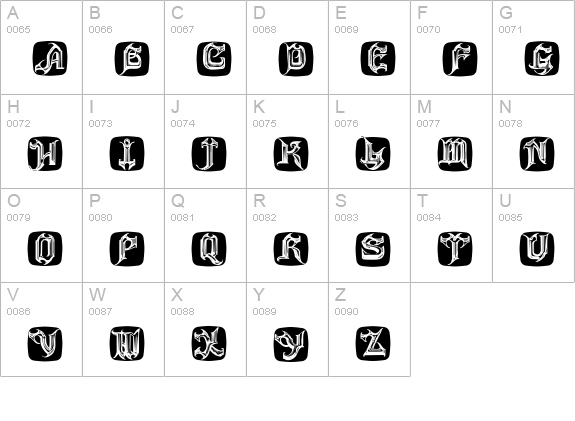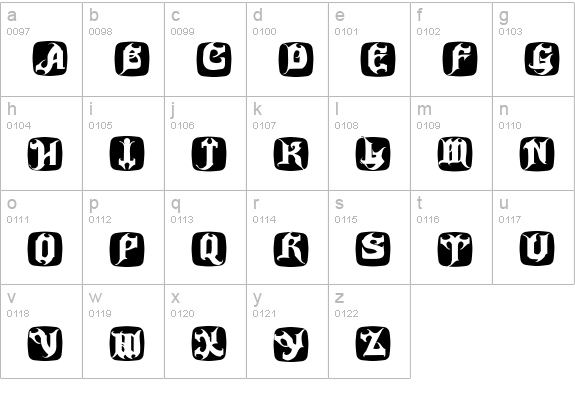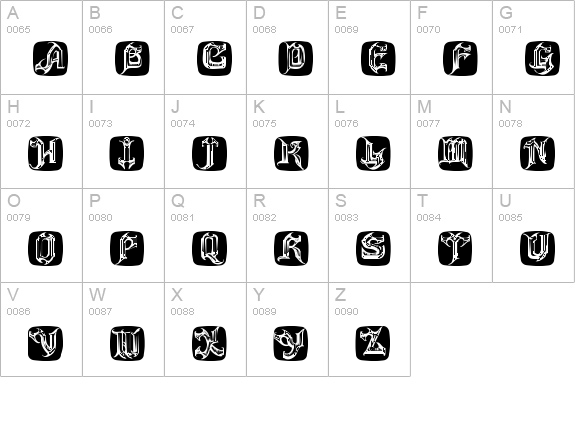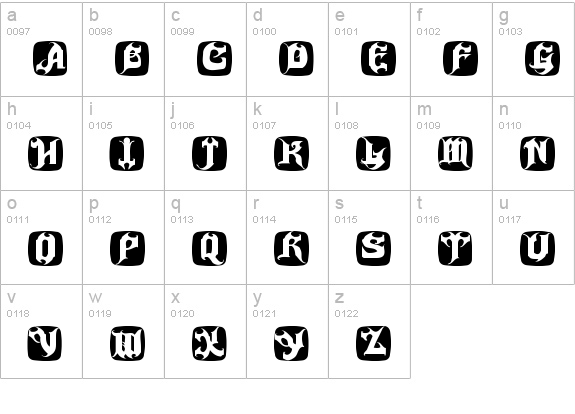
Introducing HauntedBricks, a spine-chillingly captivating font that will send shivers down your spine. This eerie typeface is perfect for adding a haunting touch to your Halloween-themed designs, horror movie posters, or any project that requires a touch of the macabre. Inspired by the ghostly specters that lurk in ancient buildings, HauntedBricks features an intricate design that mimics the weathered and decaying appearance of aged bricks. Each letter is meticulously crafted to evoke a sense of mystery and darkness, making it an ideal choice for any project that seeks to capture the essence of the supernatural. What sets HauntedBricks apart is not only its captivating design, but also its availability as a free font. Yes, you heard it right - this bone-chilling typeface is freely available to download at FontsMarket.com, allowing you to bring a touch of the paranormal to your designs without breaking the bank. Whether you're a professional designer or a hobbyist, HauntedBricks offers an opportunity to embrace the darkness without any cost. With its extensive character set, HauntedBricks grants you the freedom to unleash your creativity and experiment with various typographic layouts. From posters to invitations, website headers to social media graphics, this font seamlessly lends itself to any project that demands a touch of the mysterious. So, why wait? Dive into the supernatural realm with HauntedBricks and let your designs bewitch and captivate your audience. Download this free font today at FontsMarket.com and embark on a journey into the realm of haunted typography.